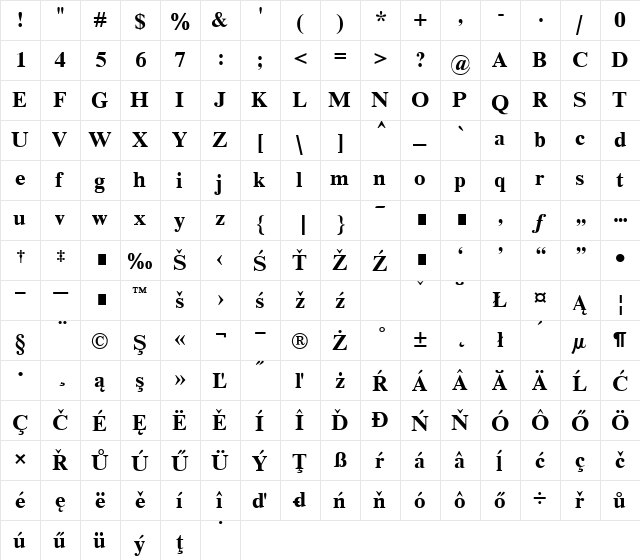
TmsEe Bold
Design Context for TmsEe Typeface
TmsEe offers clean, dependable letterforms without strong stylistic allegiance, making it a practical choice for designers who need flexibility. The heavy weight commands attention and anchors typographic hierarchies.